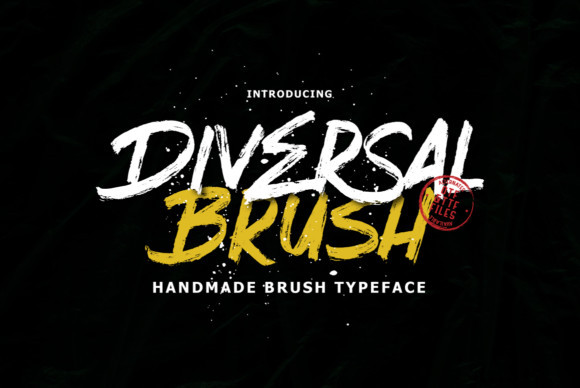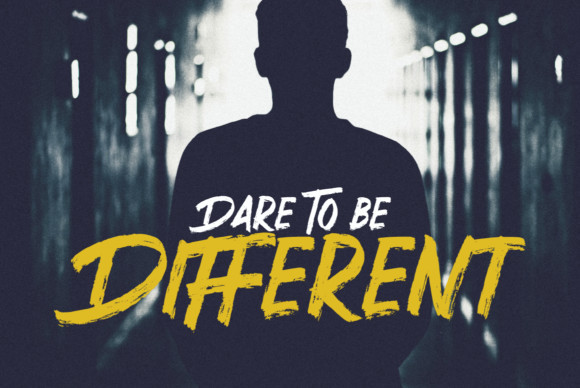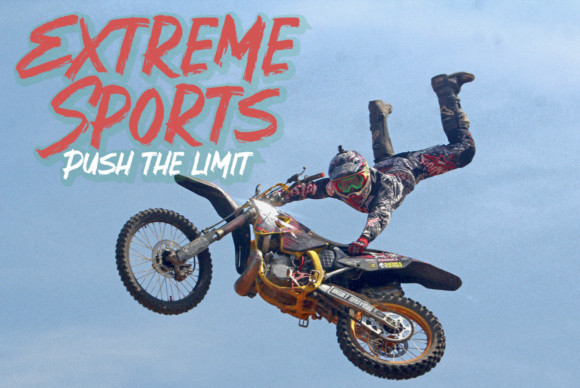
Diversal Brush Font
Diversal Brush is a bold display font, featuring a dramatic vibe. Add this font to your creative ideas and notice how it will make them stand out!